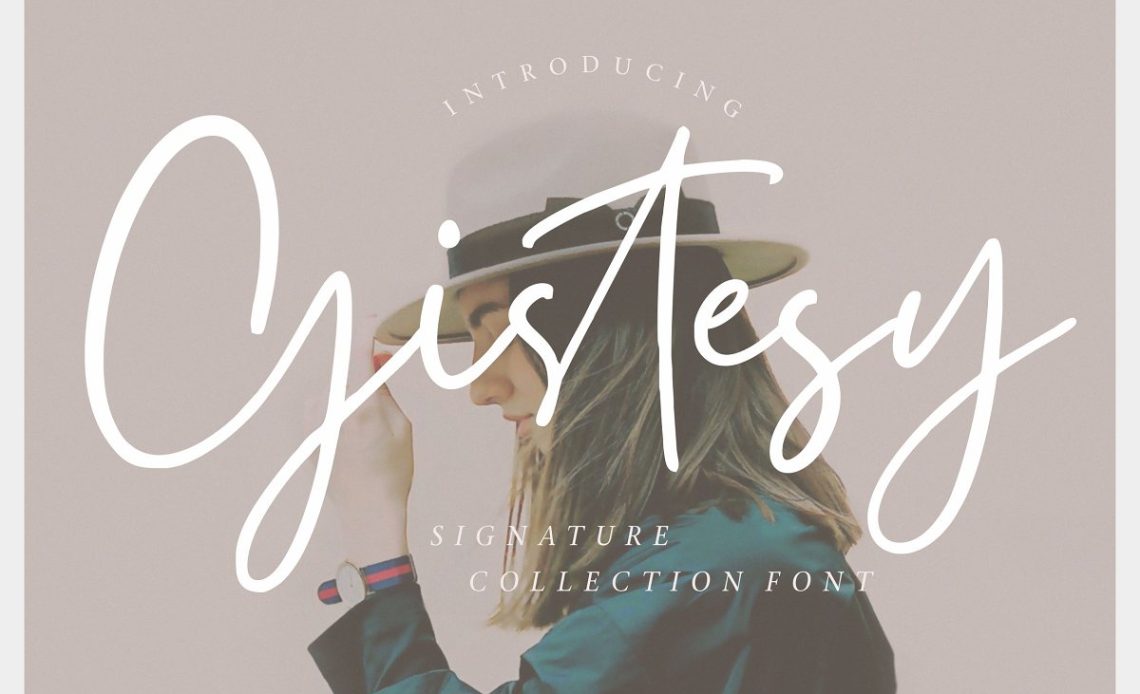
Introducing Gistesy Signature Business Font, a script font created by Mohamad Rian Rahardi that combines both modern and vintage elements to bring an elegant, classy, and beautiful touch to your latest project. Whether you're looking to brand your business, create stunning wedding designs, or elevate your social media presence, Gistesy is the perfect font for you.
In addition to its impressive features, Gistesy Signature Business Font also offers multilingual support for over 20 languages, making it a great option for businesses and individuals with a global reach.
Investing in Gistesy Signature Business Font is a no-brainer. It's perfect for logos, product packaging, labels, photography, invitations, stationery, and any project that requires a touch of handwriting elegance. And with its ability to convey both modern and vintage elements, this font is truly timeless.